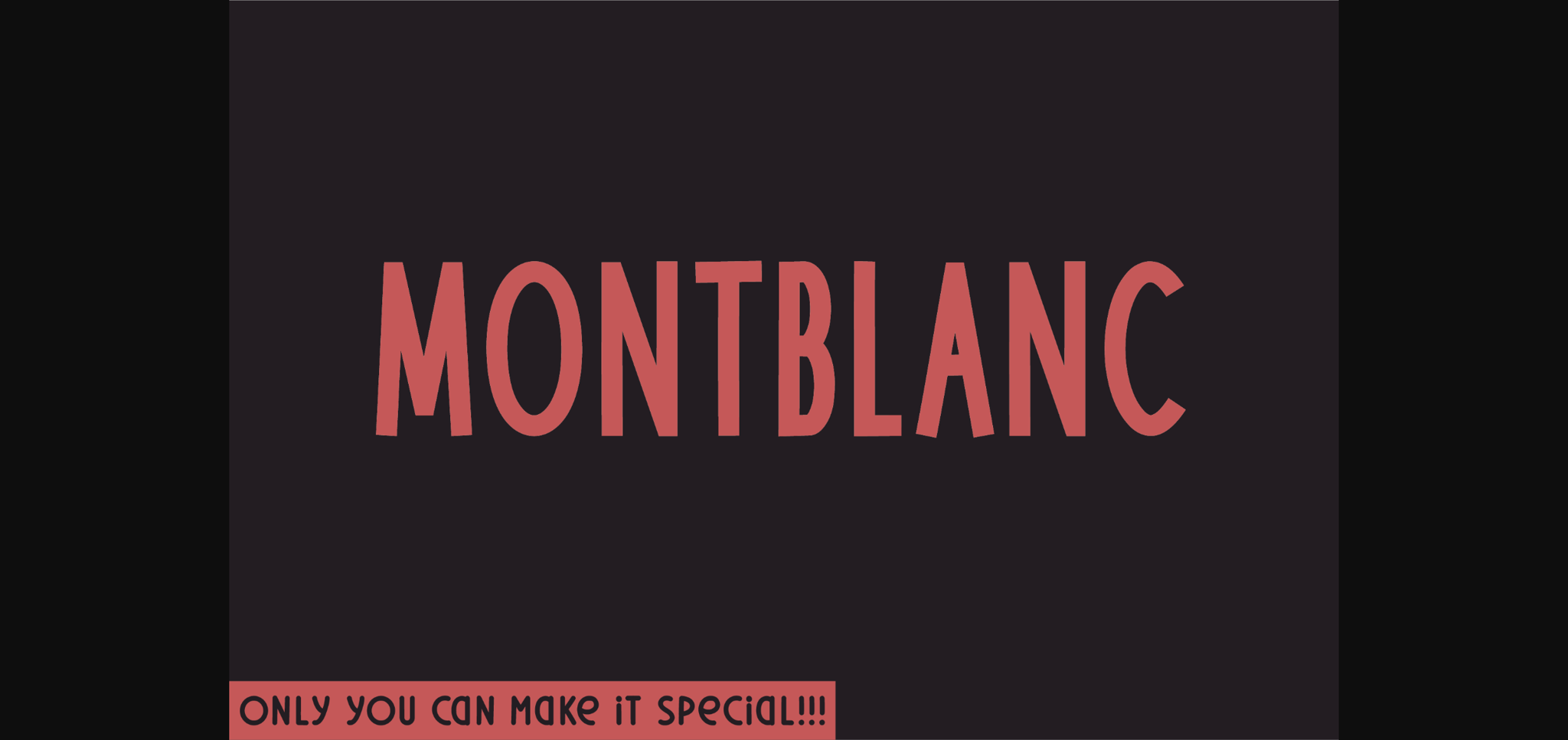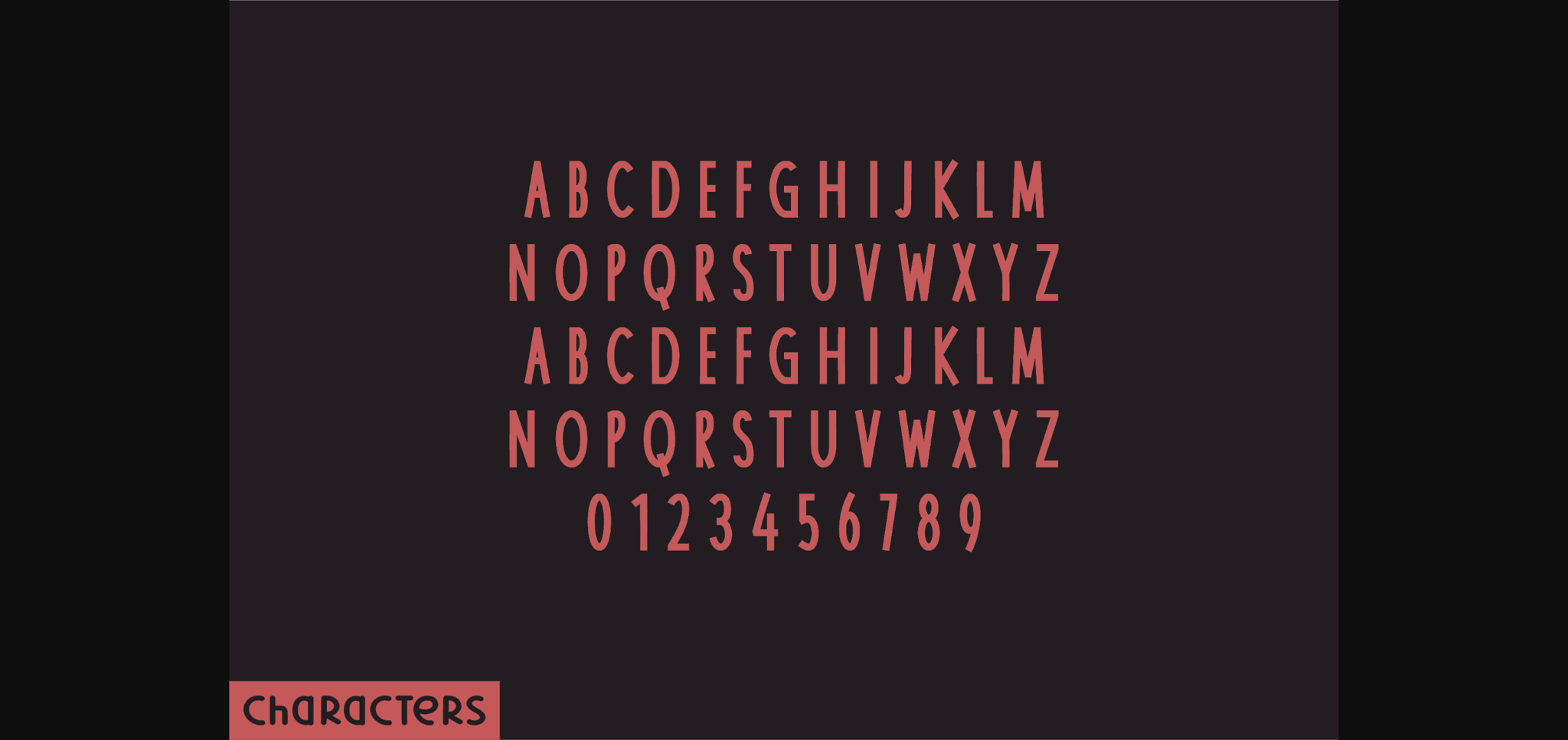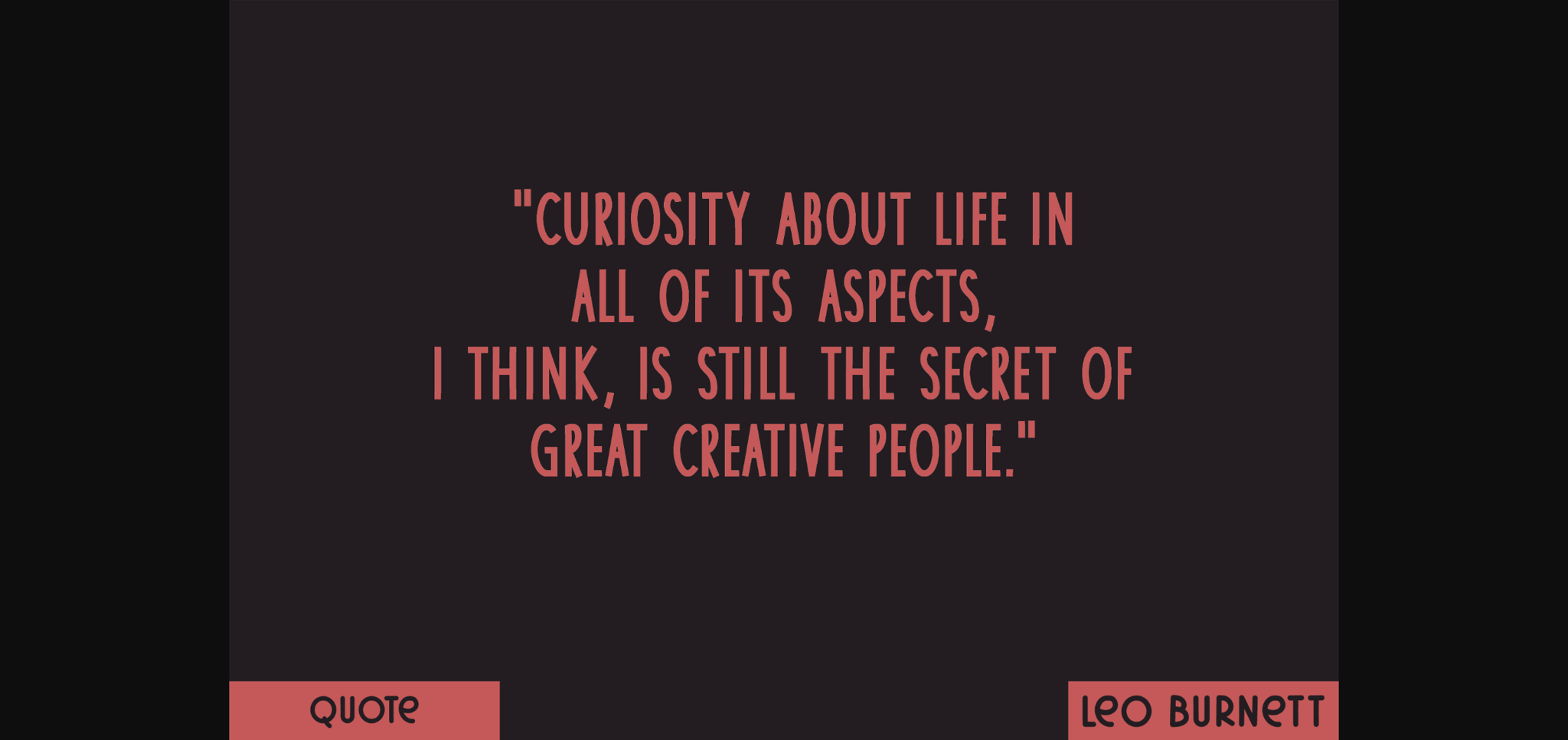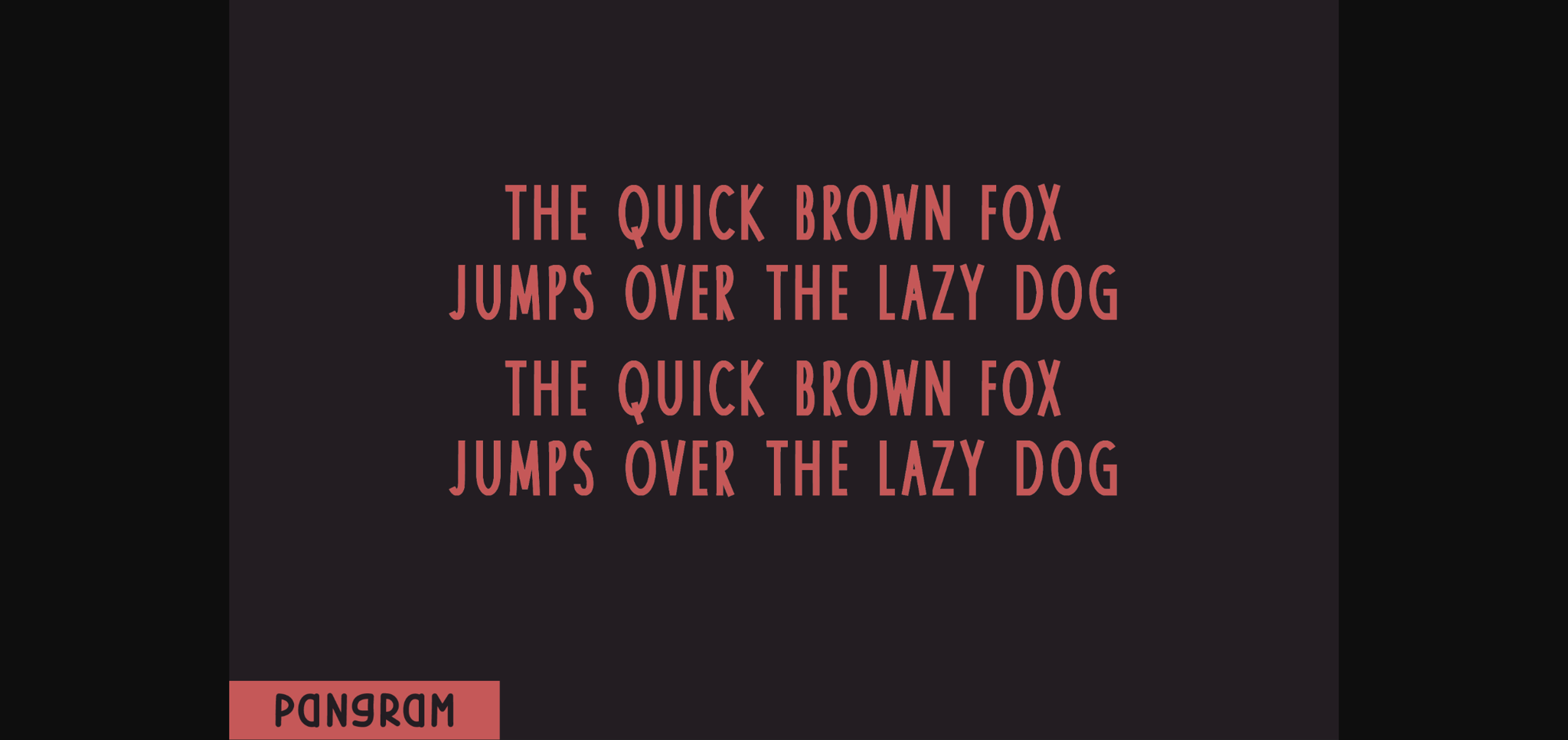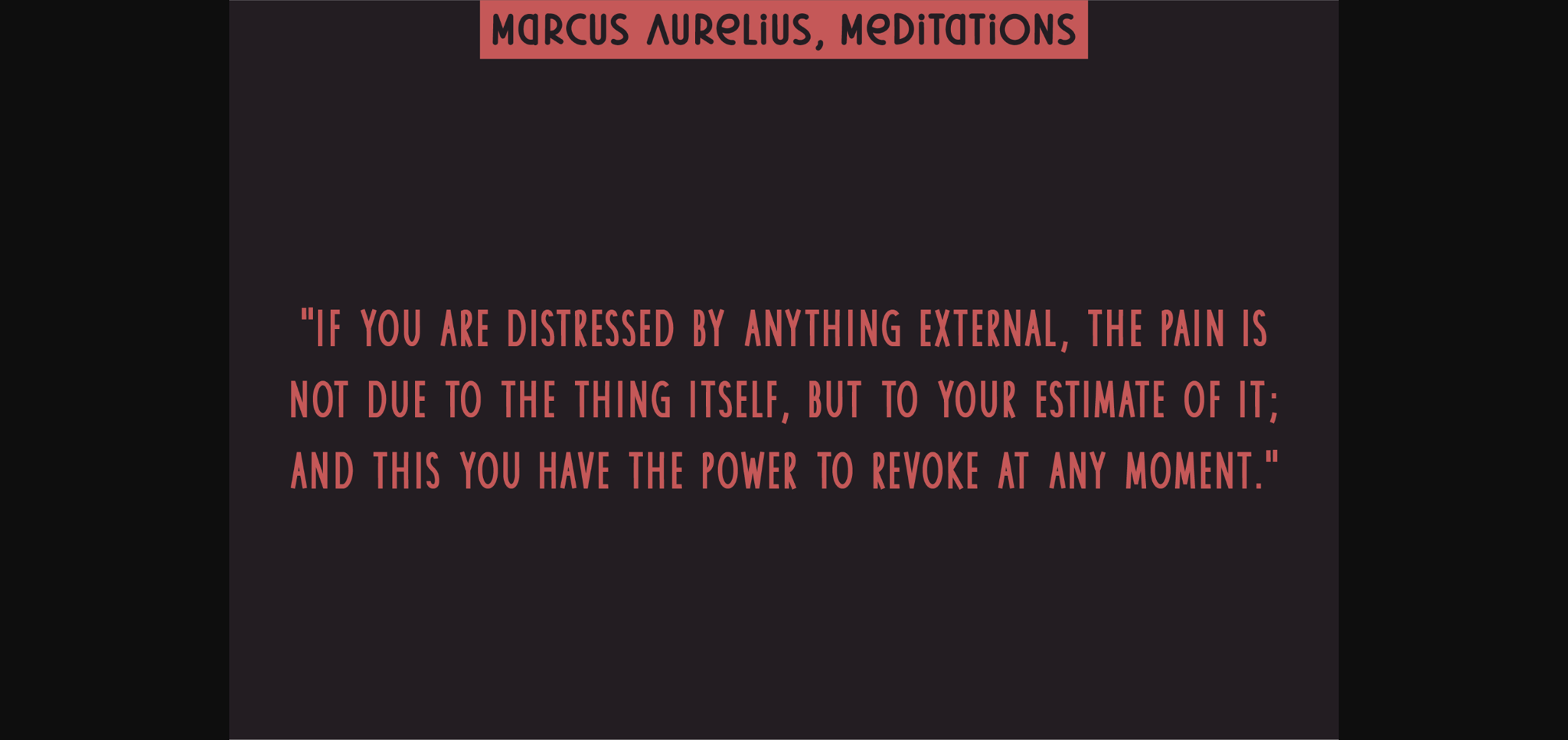
About Montblanc Font
Immerse yourself in the elegance and simplicity of Montblanc, a sans serif display font. Exquisitely crafted, the font displays uppercase letters, numbers, and handy functionalities. Each character end manifests a solid, linear form, subtly echoing the charm of natural handwriting. Rich in flexibility, Montblanc excels in designs that crave a touch of organic appeal.